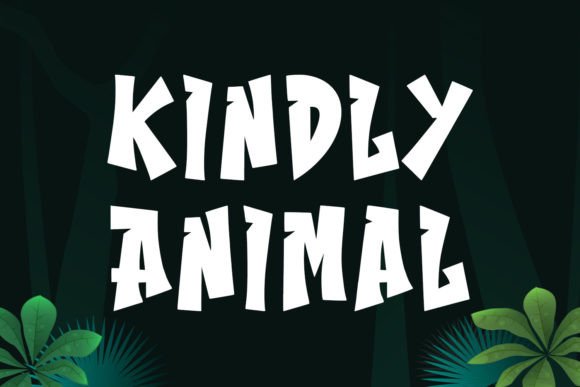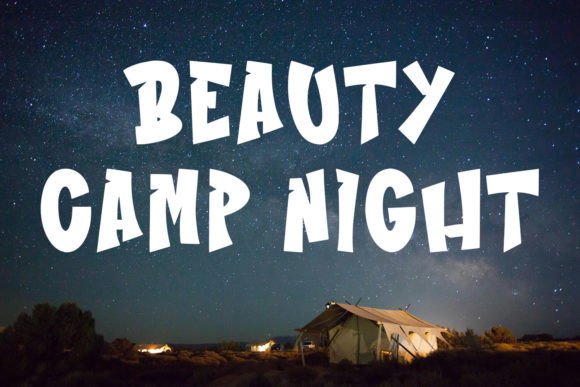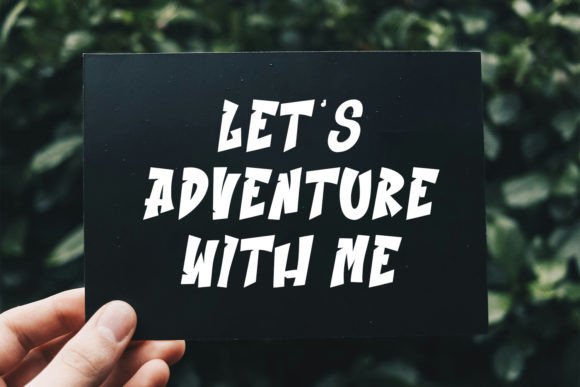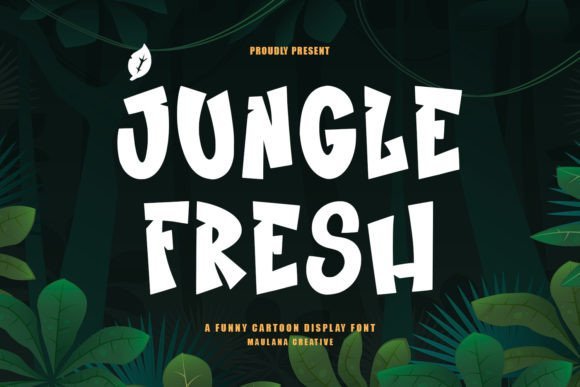
Introduction to Jungle Fresh Font
Jungle Fresh is a fun and friendly display font.
Whether you are using it for cartoon-related designs, children games, quotes, titles, brand names, book covers,posters, or just any creation that requires a touch of joy, this font is a great choice .